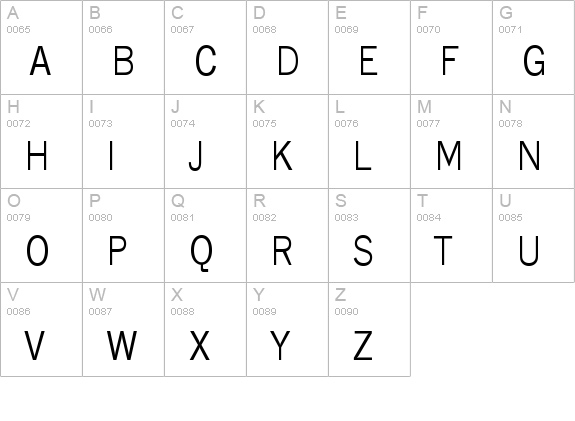
Hamburg-Light Font Details
Hamburg-Light is a refined, elegant variant in the Hamburg typeface family \xE2\x80\x94 well suited to elegant body text, refined sub-headings, and luxury branding.
Hamburg-Light font is a stunningly elegant typeface that effortlessly balances modernity and sophistication. With its clean lines and delicate curves, this font exudes a sense of refined elegance that is perfect for a wide range of design projects. The Hamburg-Light font is characterized by its slim and slender letterforms, which lend a sense of lightness and grace to any text. Its minimalistic aesthetic makes it versatile and adaptable, ensuring that it can be used in various contexts, from branding and logo design to editorial layouts and website headers. One of the most remarkable aspects of the Hamburg-Light font is that it is available for free download at FontsMarket.com. This means that designers and creatives have the opportunity to access this beautiful font without any cost, making it an invaluable resource for those looking to elevate their projects without breaking the bank. Whether you're a professional designer or simply someone with a passion for typography, the Hamburg-Light font is a must-have in your collection. Its timeless appeal and versatility make it a go-to choice for those seeking to create visually stunning and impactful designs. So, don't miss out on this incredible opportunity to enhance your work with the freely available Hamburg-Light font, exclusively on FontsMarket.com.